As a designer, I selected these sans serif fonts to cover the full spectrum of modern design needs — from bold impact to quiet minimalism. Each typeface solves a specific visual problem while keeping clarity, versatility, and strong visual presence at its core.
Limited Font
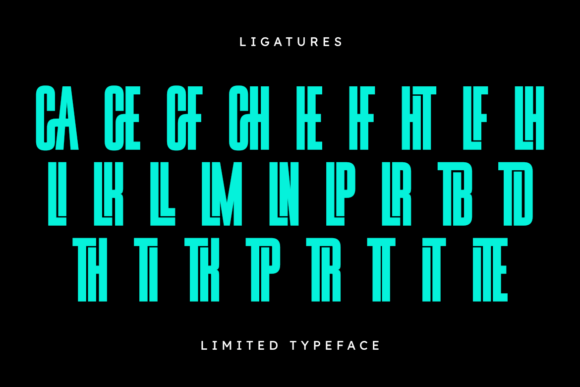
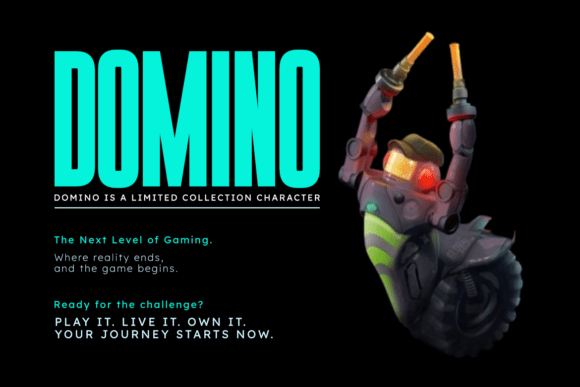
Limited is bold and ultra-condensed, created for maximum impact in minimal space. Its tall, confident structure makes it ideal for headlines, posters, album covers, sports graphics, and advertising where attention is everything.
Minimalist Font
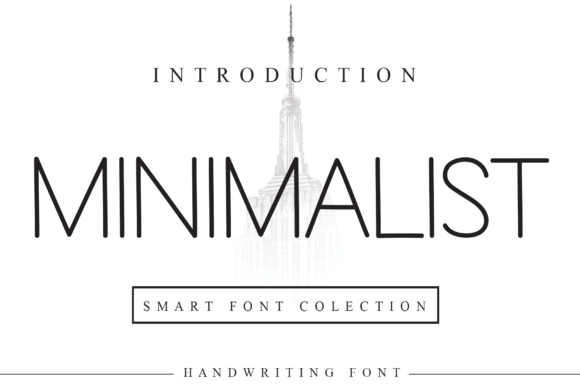
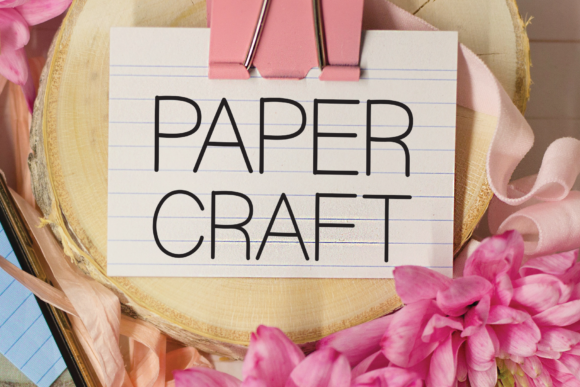
Minimalist lives up to its name — clean, neat, and endlessly adaptable. It blends effortlessly into a wide range of projects, allowing content to shine without distraction.
Minimalist Font
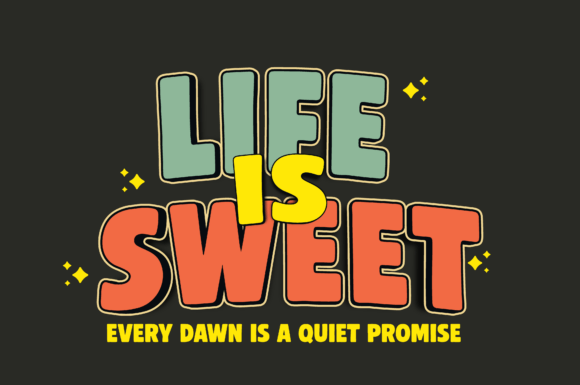
Muffin brings playful energy with thick, chunky letterforms that feel bold yet friendly. Its geometric balance and rounded edges make it perfect for logos, packaging, social media, and modern branding that needs personality without chaos.
Marshmallow Font
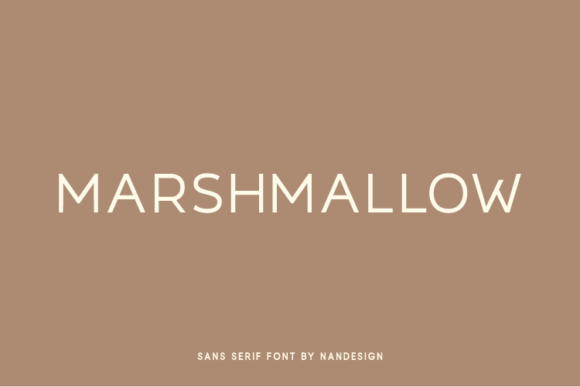
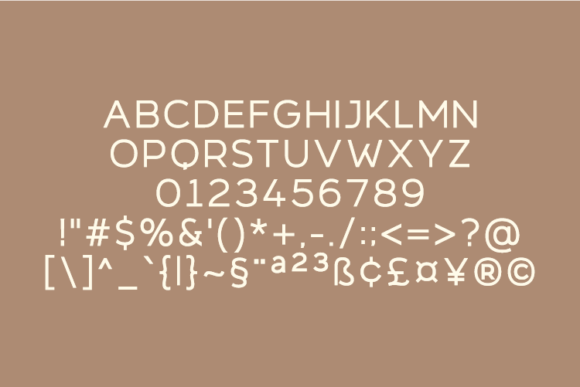
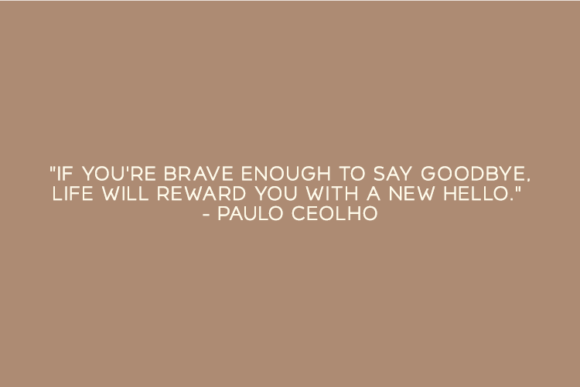
Marshmallow adds softness and elegance, working beautifully for invitations, weddings, displays, and stylish headers while remaining clear and approachable.
Paper Notes Font
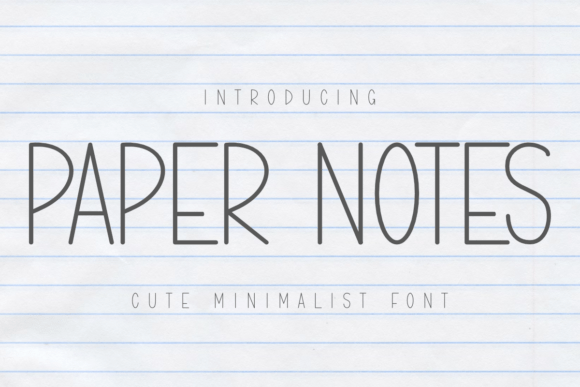
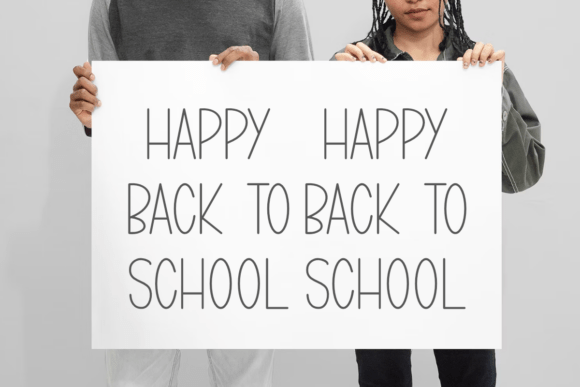
Paper Notes completes the collection with a thin, handwritten-inspired sans serif, perfect for planners, journals, KDP interiors, labels, and everyday creative products.
Together, these fonts offer designers flexibility, readability, and character — tools to communicate clearly while still standing out.